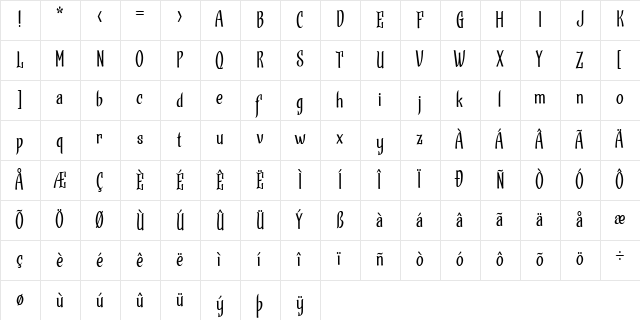
Strandall Demo Regular Font Preview
Strandall Demo Regular
Strandall Demo Regular Font Details
| Foundry | Patria Ari Typestudio |
| Designer | Patria Ari Wijonarko |
Design Context for Strandall Demo Typeface
Strandall Demo offers clean, dependable letterforms without strong stylistic allegiance, making it a practical choice for designers who need flexibility.